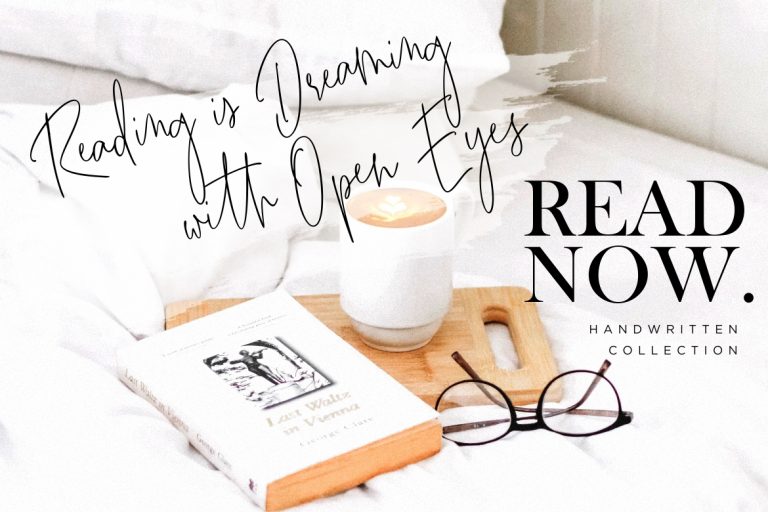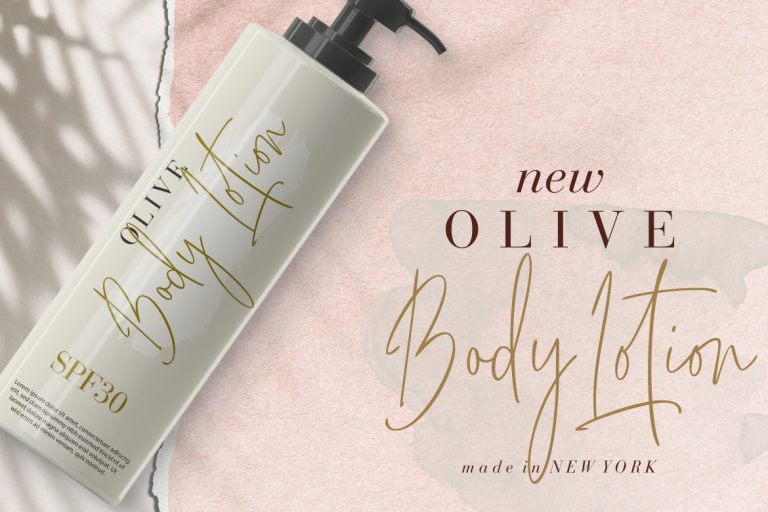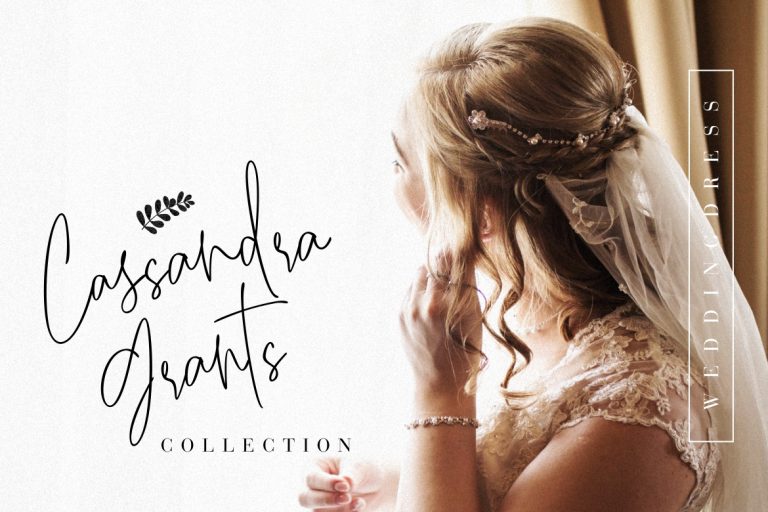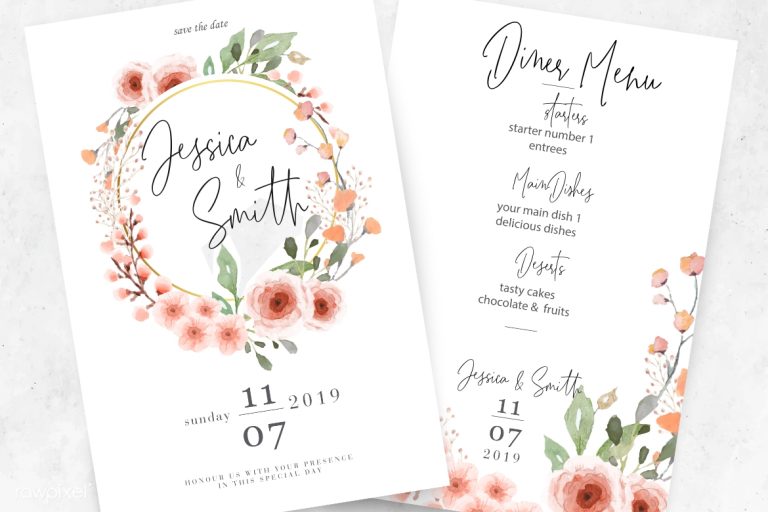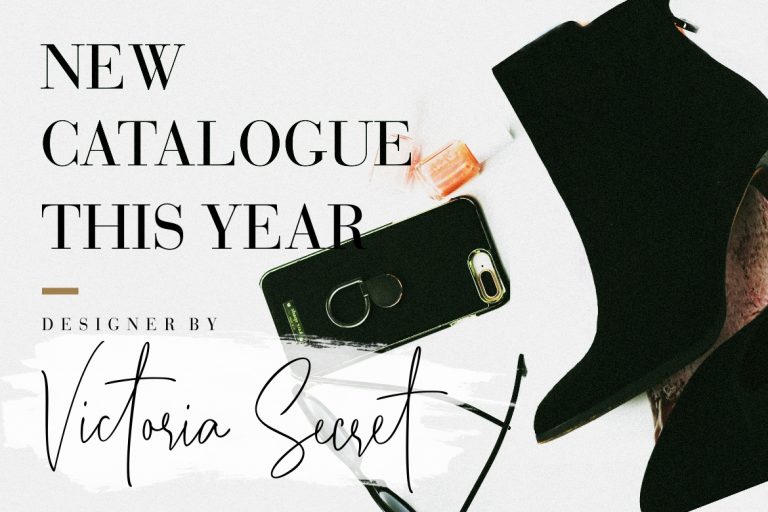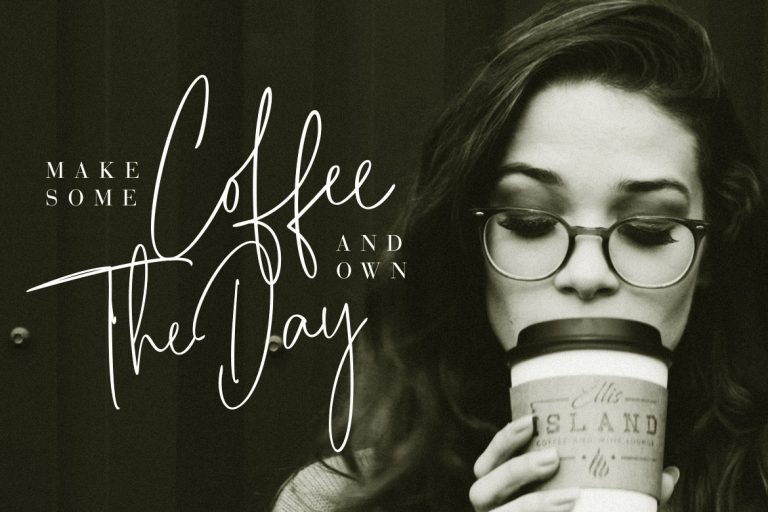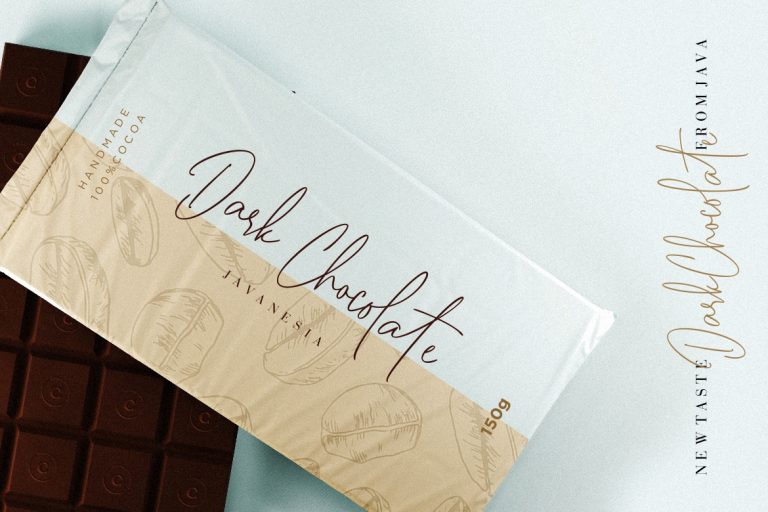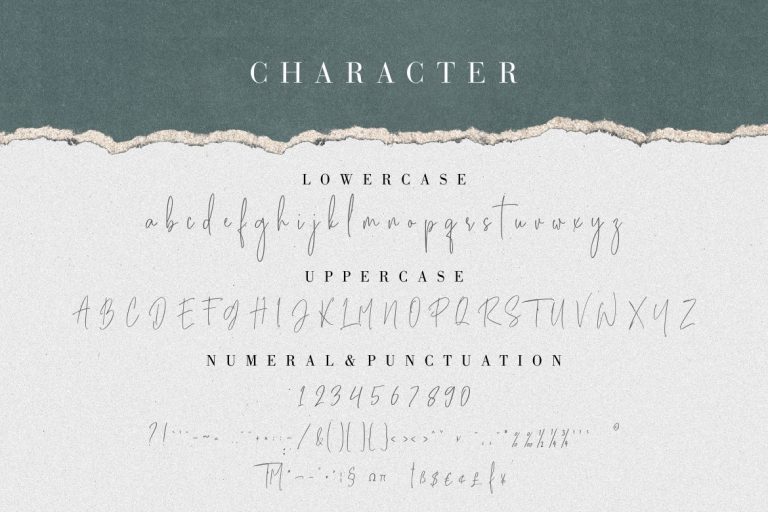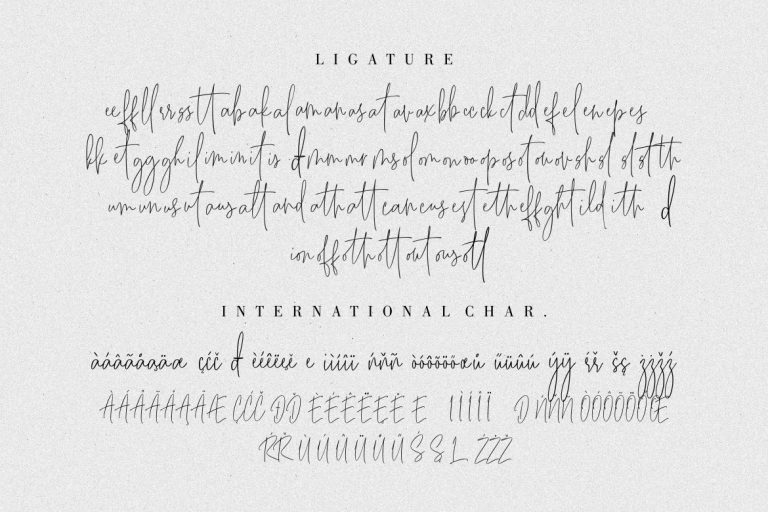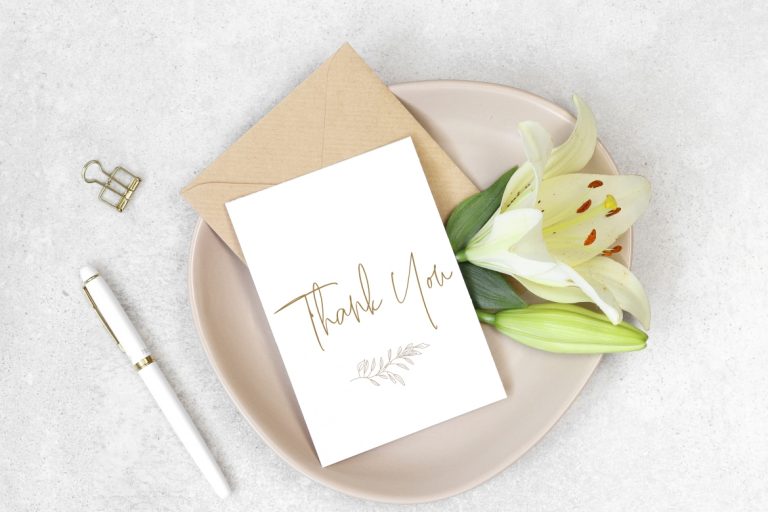
Besties Matthew is consisting of a fashionable signature-style script make looks elegant, classy and touch of luxury and stylish. This font was created to look as close to a natural handwritten script as possible by including over 100 ligatures.
Besties Matthew is perfect for branding projects, logo, wedding designs, social media posts, advertisements, product packaging, product designs, label, photography, watermark, invitation, stationery and any projects that need handwriting taste.
- More than 500 of glyphs
- Tons of Ligature
- Fonts include multilingual support for; Afrikaans, Albanian, Catalan, Danish, Dutch, English, French, Hungarian, Icelandic, Italian, Spanish, Portuguese, German, Swedish, Norweigen, Polish, Indonesian, Turkish, Zulu